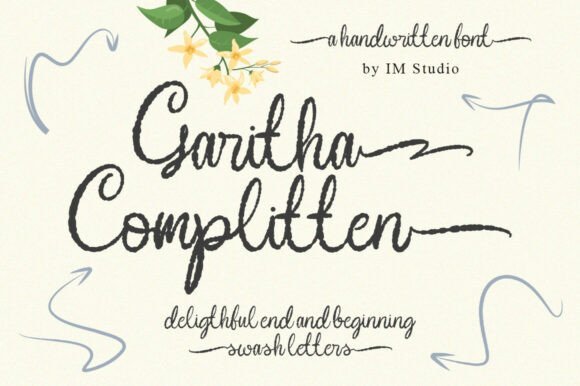
Unleashing the Charm of Handcrafted Design
As a designer, have you ever found yourself lost in the process of creating the perfect logo or branding identity? You envision a unique, organic feel that screams “handcrafted” and “heartfelt,” but the right font eludes you. It’s as if you’re searching for a missing piece of a puzzle that completes the entire picture. This is where the Garitha Complitten Font comes in – a textured script typeface that embodies the essence of rustic charm and relaxed elegance.
Garitha Complitten Font is a game-changer for designers seeking to infuse their designs with a warm, personal touch. Its fluid, hand-drawn letterforms and elegant beginning and end swashes make it an ideal choice for a wide range of projects, from wedding stationery to boutique apothecary logos and artisanal food packaging. With its unique “ink-bleed” textures and expressive flow, this font is sure to elevate your designs and leave a lasting impression on your audience.
Key Features of Garitha Complitten Font
- Font Family: Garitha Complitten, a high-quality, modern script font
- Unique Characteristics: Features elegant, flowing lines and subtle flourishes, making it perfect for creative and artistic projects
Garitha Complitten Font Review
As a designer, I was excited to dive into the world of Garitha Complitten Font. At first glance, the font’s unique blend of traditional and modern elements had me hooked. Here’s what I liked and what didn’t quite hit the mark:
- The font’s quirky charm and character make it perfect for creative projects that need a touch of whimsy.
- The font’s complexity can make it challenging to read in certain contexts, particularly in smaller sizes or when paired with other fonts.
- The font’s unique style may not be to everyone’s taste, which could limit its appeal for more conservative or traditional designs.
Overall, I’d say Garitha Complitten Font is a solid choice for designers looking for a distinctive, creative option. While it may not be suitable for every project, its unique charm and versatility make it a valuable addition to any font library.
Tips for Getting the Most Out of Garitha Complitten Font
Here are some tips for getting the most out of Garitha Complitten Font:
- Use it for titles and headings to add a touch of elegance.
- Pair it with other fonts to create a unique and visually appealing combination.
- Experiment with different font sizes and colors to achieve the desired effect.
Here are some common use cases for Garitha Complitten Font:
Alternatives to Garitha Complitten Font
Comparison: While Garitha Complitten Font has a more rounded feel, Lato is more geometric and modern. Garitha Complitten Font is more suitable for creative projects, while Lato is ideal for corporate and digital use.
Comparison: While Garitha Complitten Font has a more rounded feel, Montserrat is more geometric and urban. Garitha Complitten Font is more suitable for creative projects, while Montserrat is ideal for digital and urban use.
Merriweather is a classic serif font designed by Eben Sorkin. It is perfect for use in editorials, books, and academic publications. Merriweather is known for its elegant lines, legibility, and a traditional feel.
Q: What is the recommended font size range for Garitha Complitten?
The recommended font size range for Garitha Complitten is between 12pt and 48pt. However, the optimal font size will depend on the specific design and the intended use of the font. It’s always a good idea to test different font sizes to find the one that works best for your design.